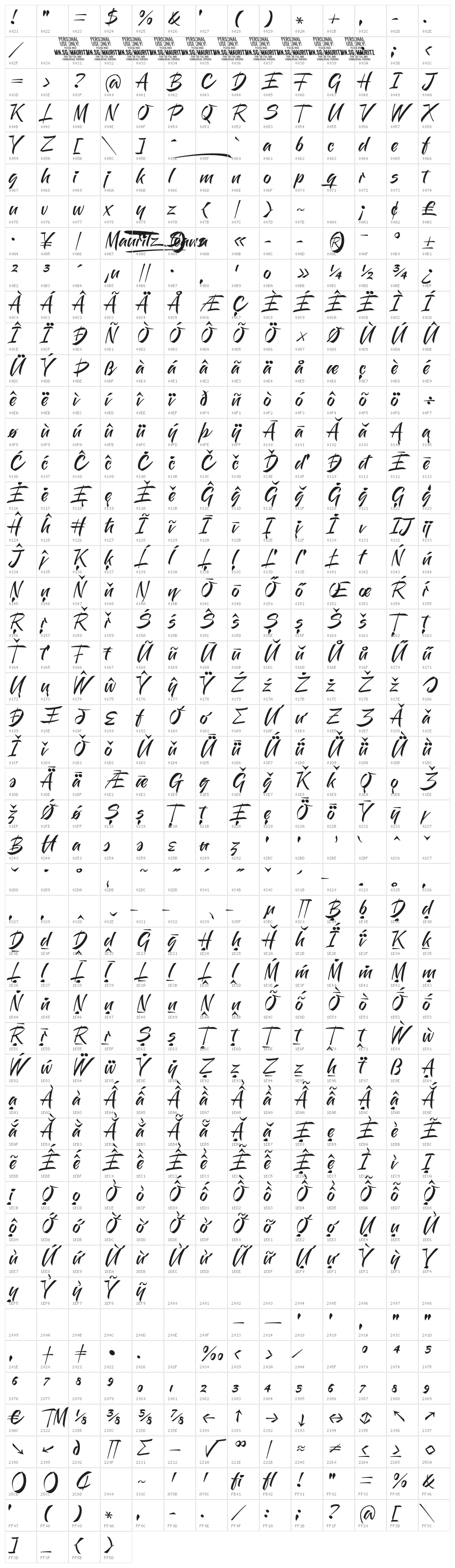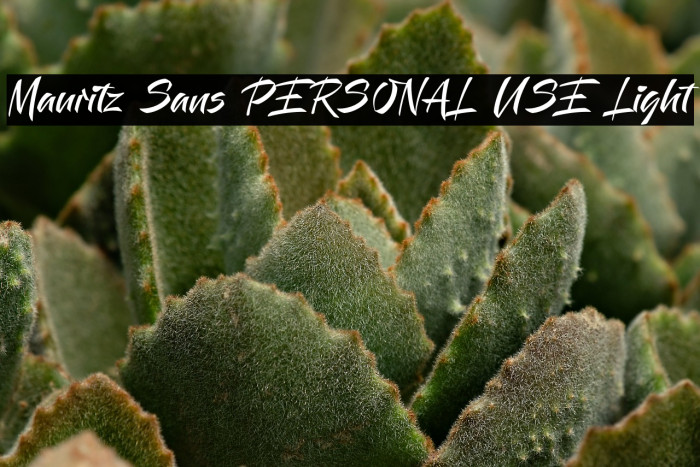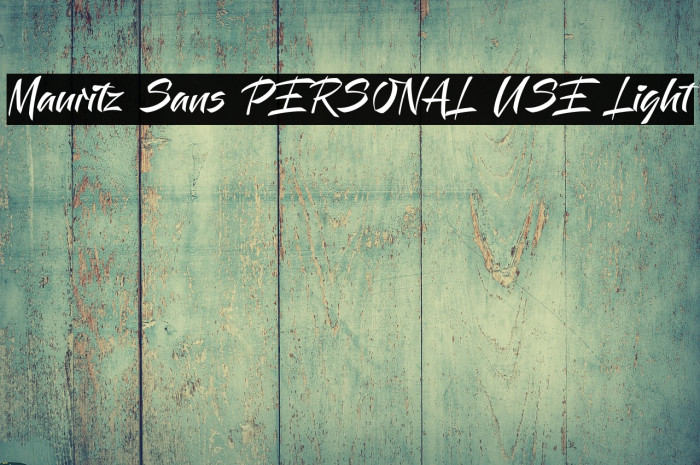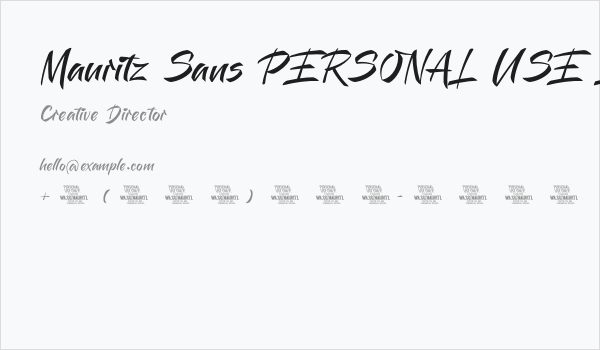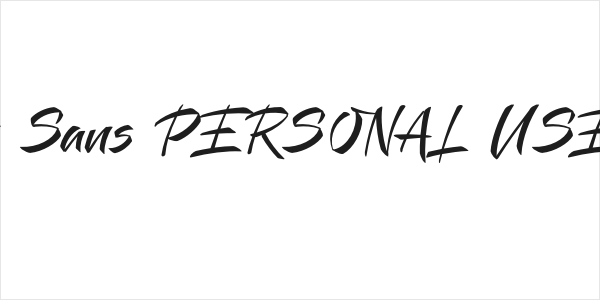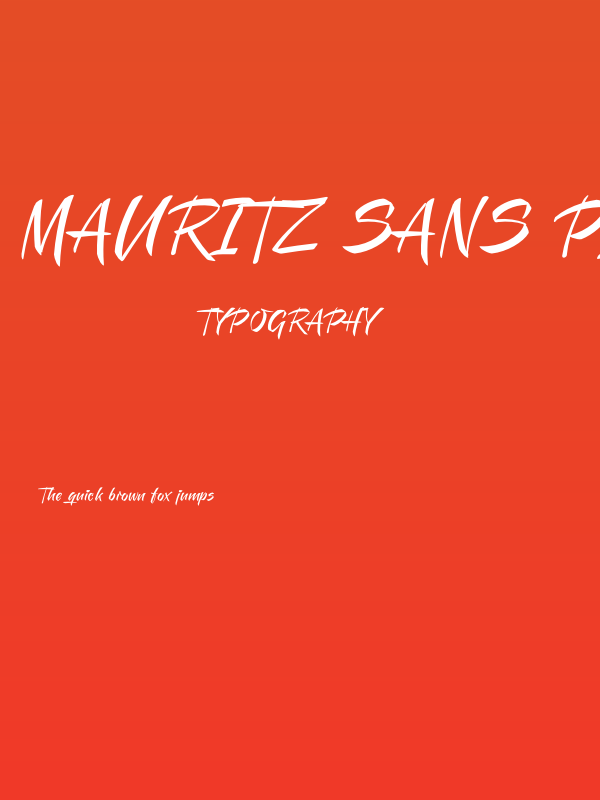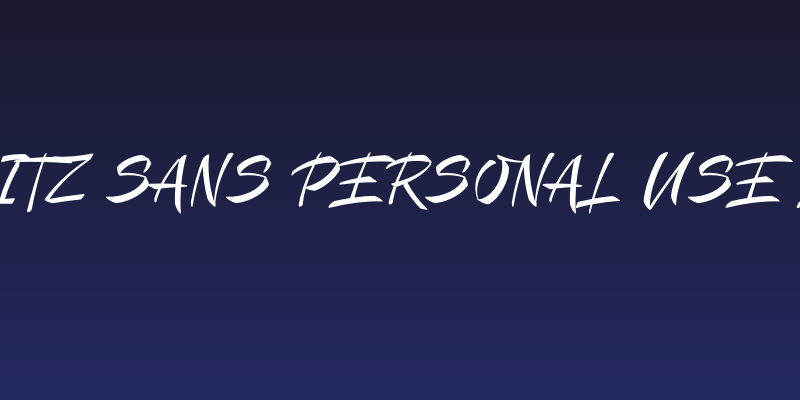
Mauritz Sans PERSONAL USE Light Font
Mauritz Sans PERSONAL USE Light Description
This font features a dynamic and energetic script style with a modern flair. The characters are crafted with a brush-like appearance, giving them a handwritten feel. The uppercase letters are bold and slightly slanted, while the lowercase letters maintain a consistent flow with elegant curves. The font includes a full set of numerals and a variety of special characters, making it versatile for various design needs. The overall look is both stylish and approachable, suitable for projects that require a personal touch.